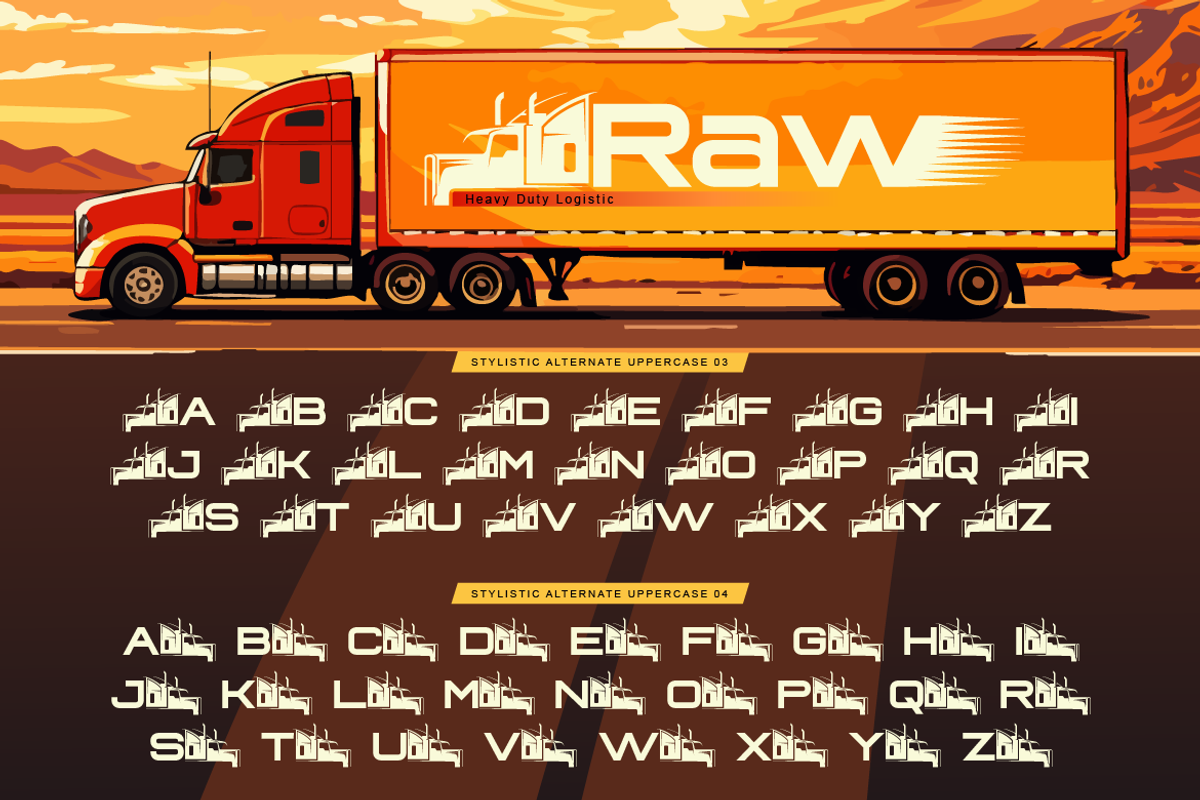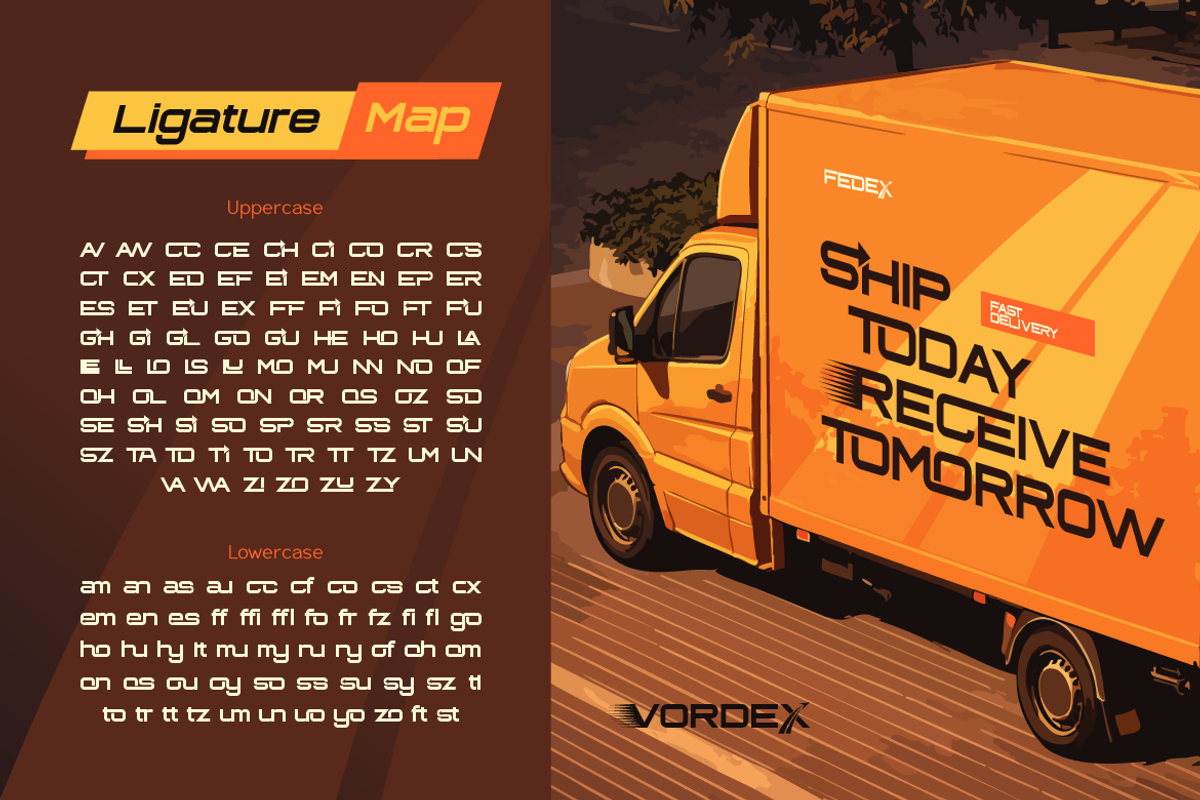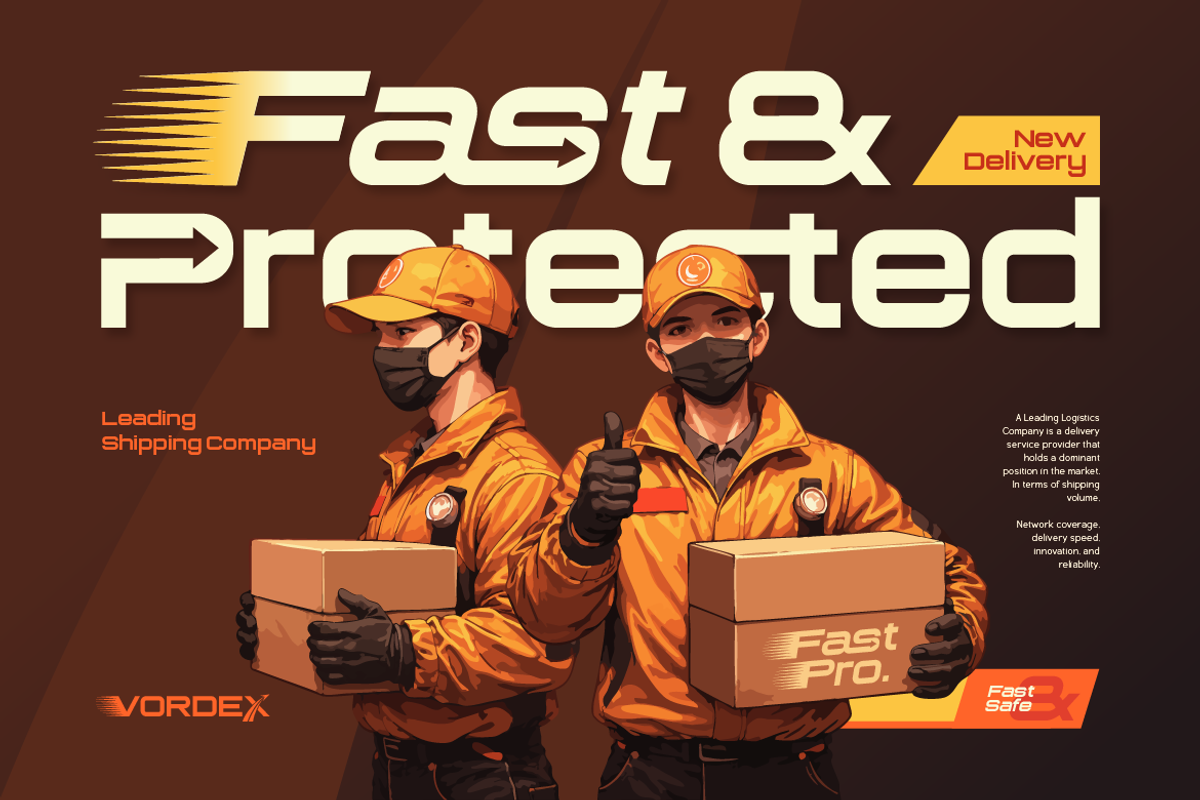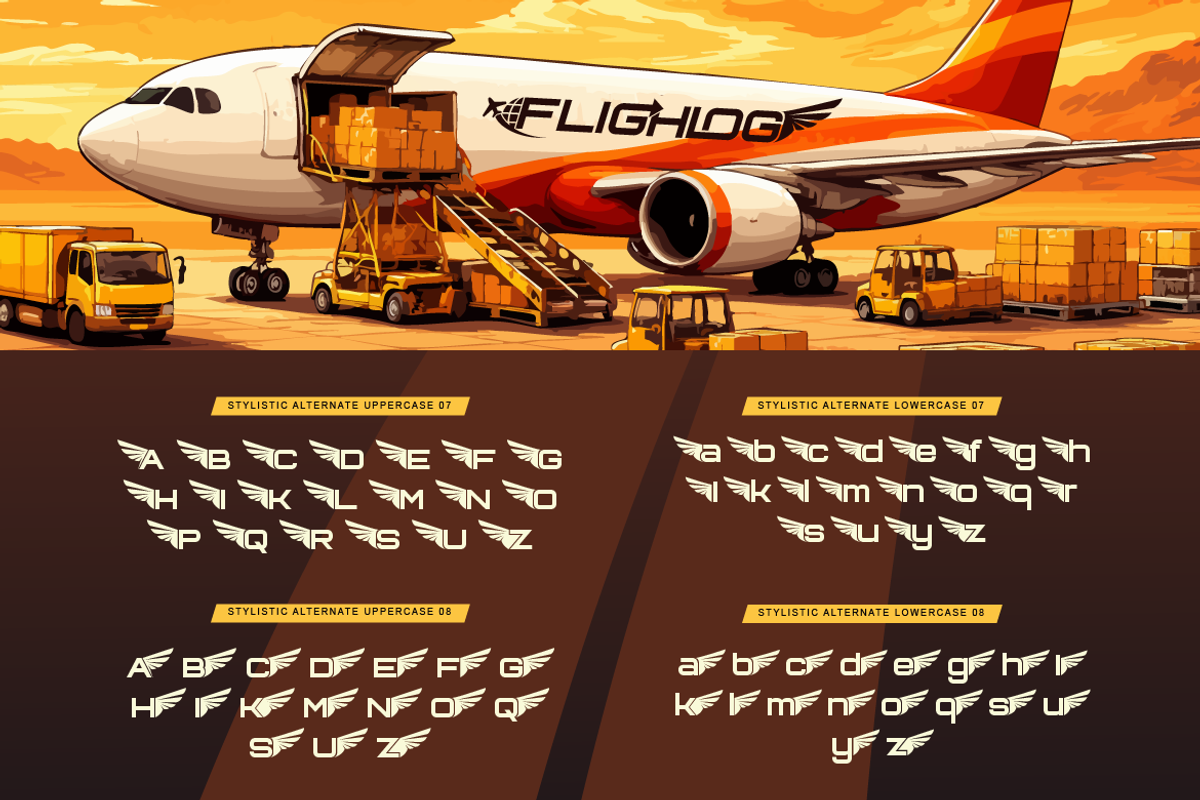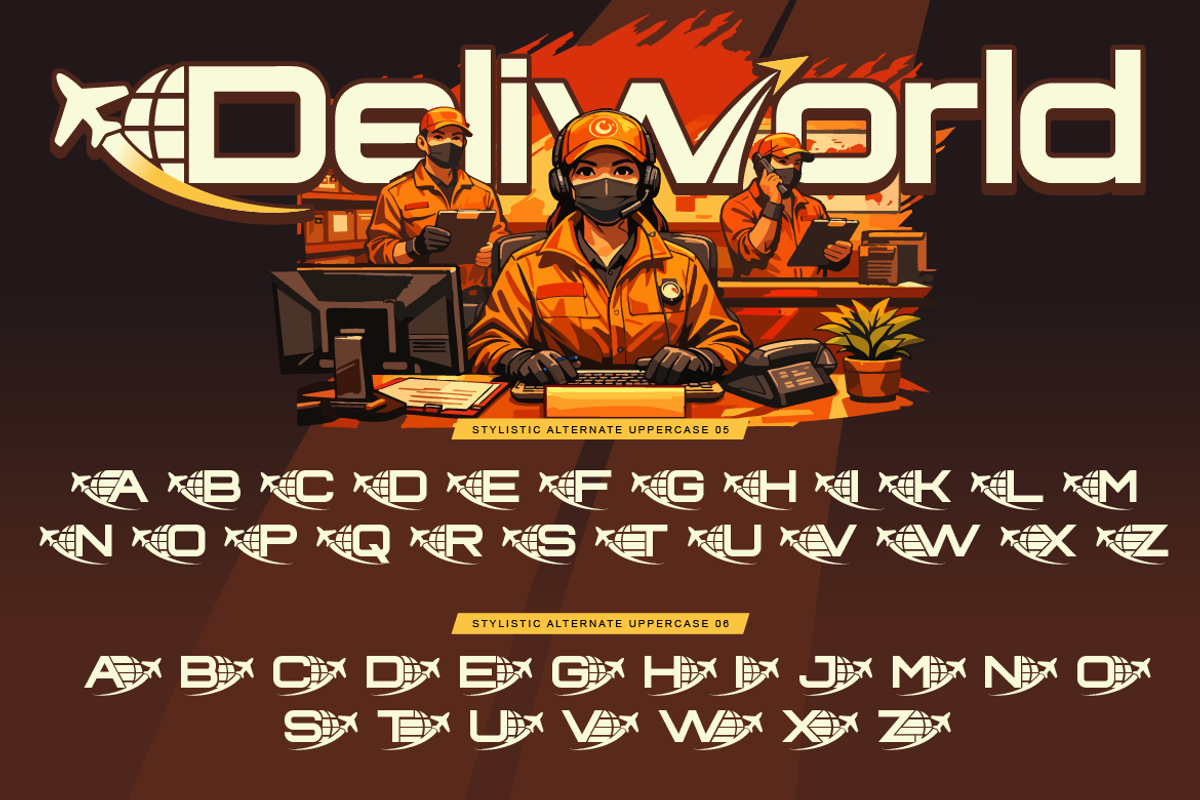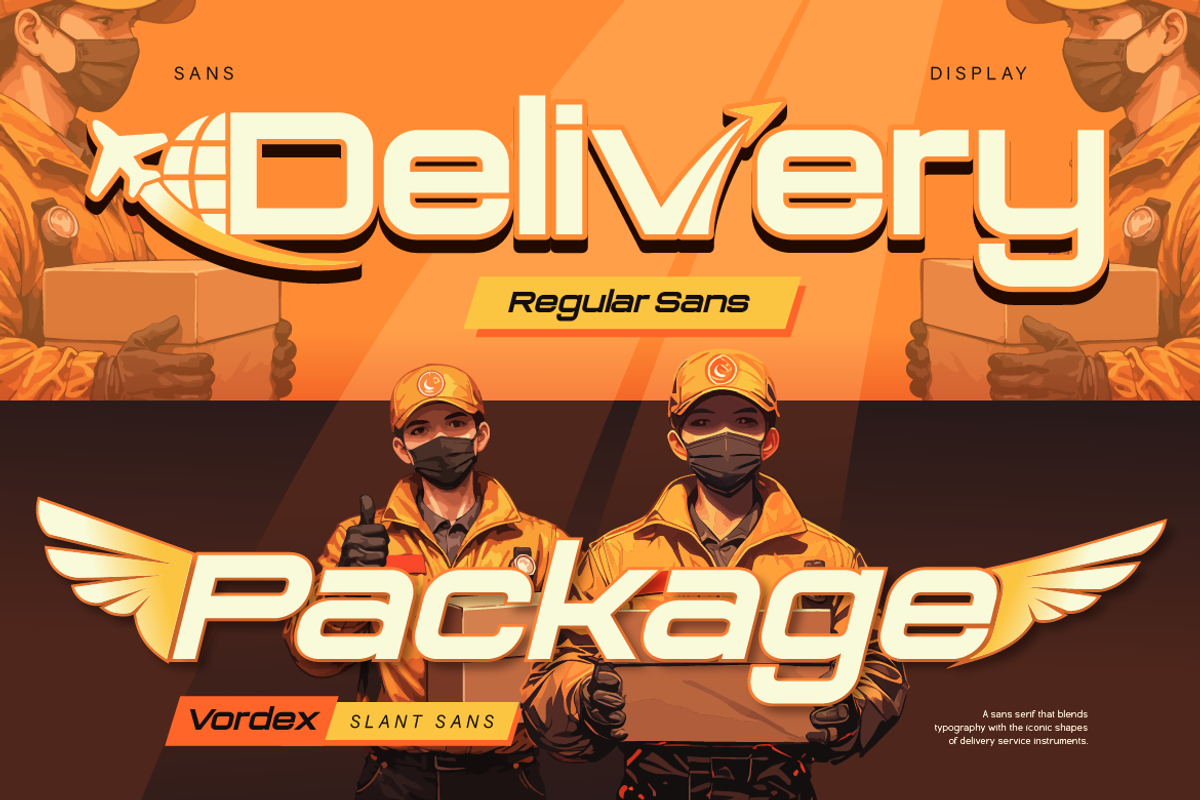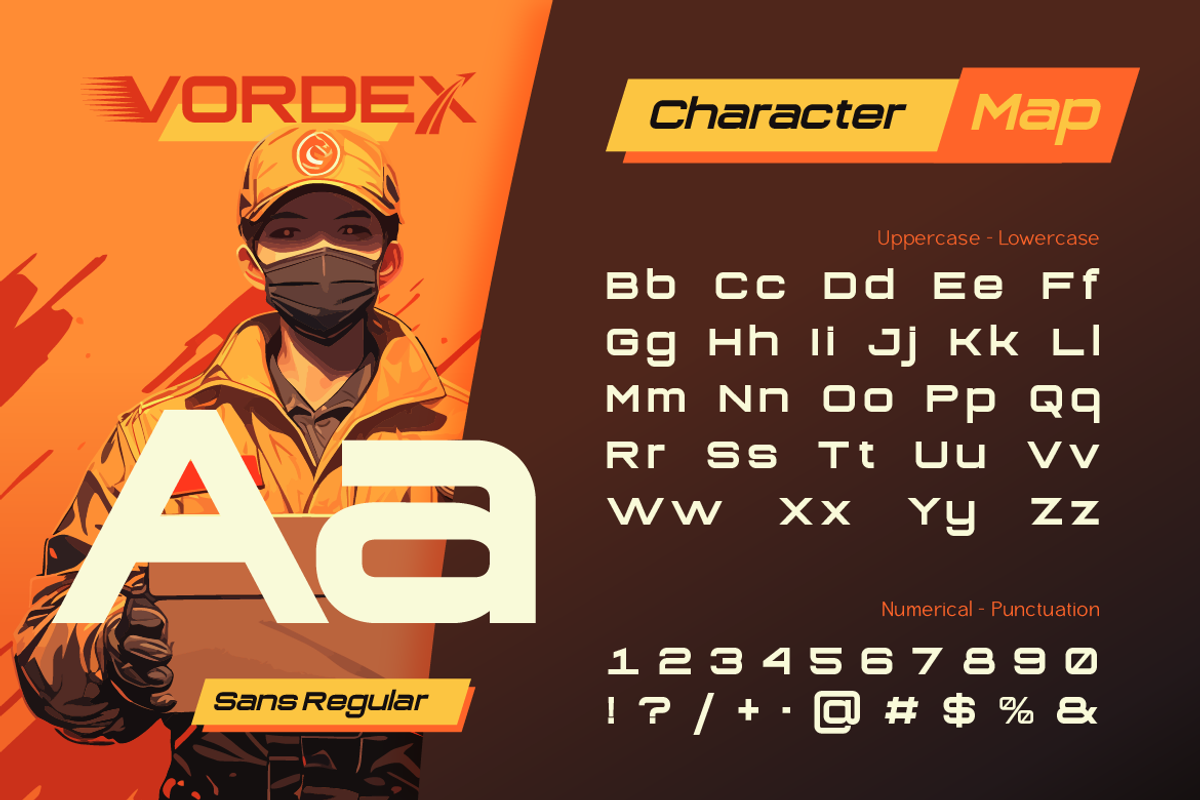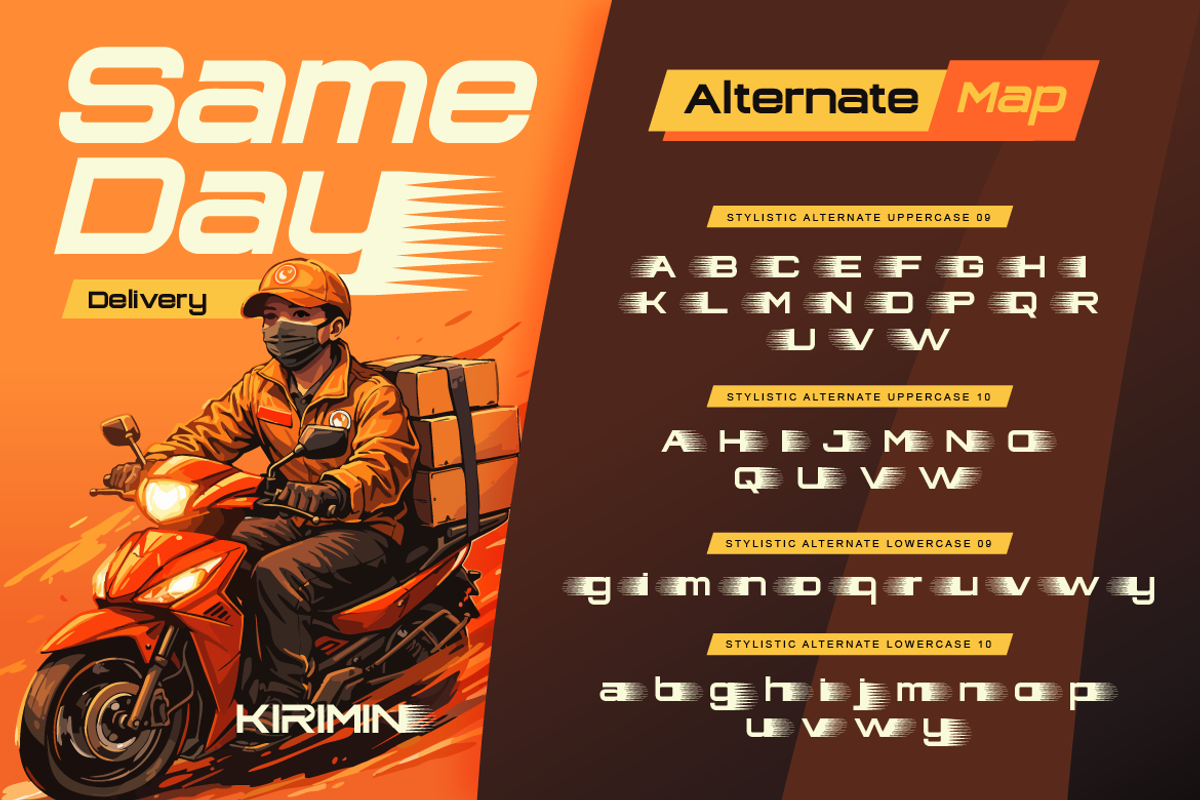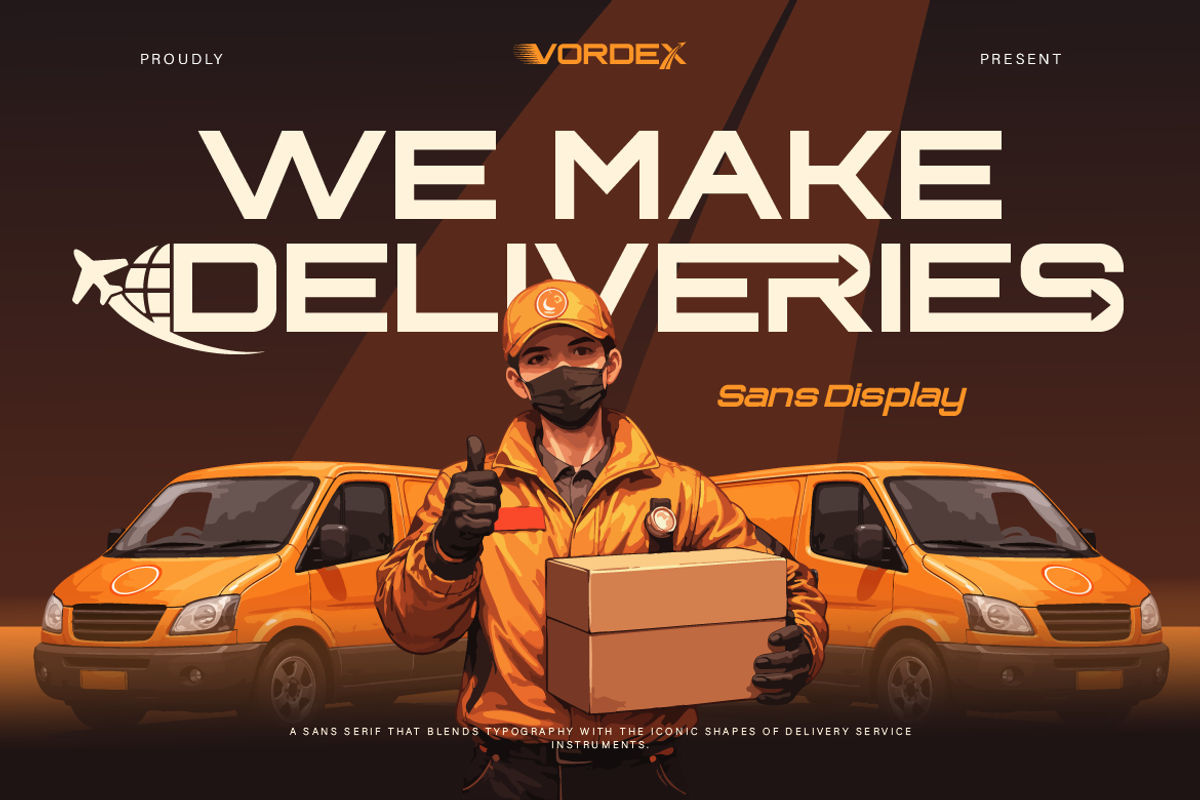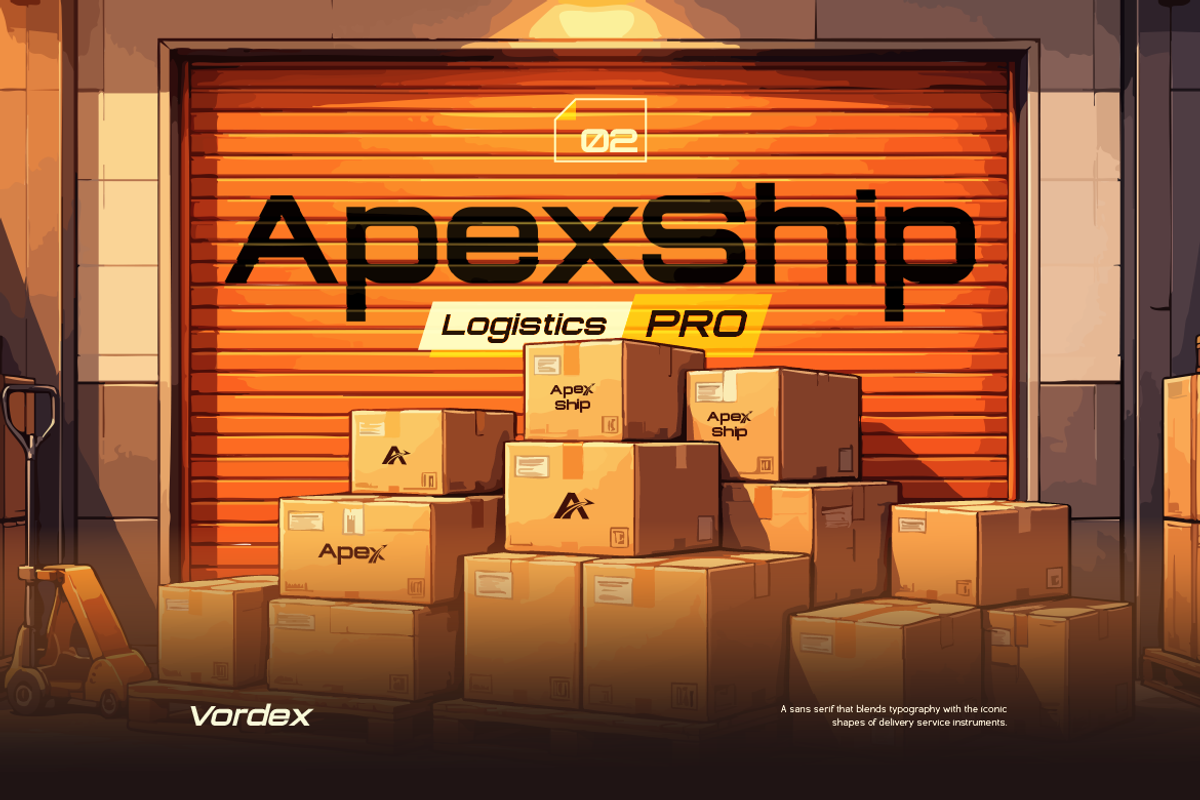
Vordex
Meet Vordex, a bold and modern sans display font inspired by the fast paced world of logistics and delivery. Designed with strong geometric shapes and dynamic cuts, this font brings a sense of speed, efficiency, and reliability into your designs. Perfect for adding motion and energy to your text just like a package moving fast to its destination. This font is perfect for:
Logistics & delivery branding
Shipping companies & warehouse visuals
Esports & gaming titles
Tech and startup designs
Posters, headlines, and social media graphics With its clean yet playful character, Vordex delivers a unique balance between professional and fun, making your design stand out while still looking sharp and modern.
A - Z set (Uppercase & Lowercase)
Number
Vordex Characters Map